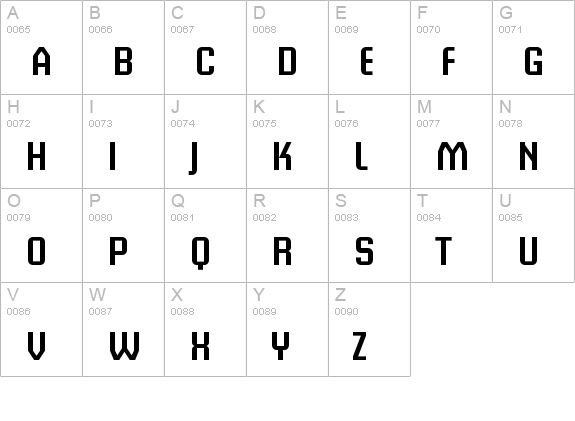
Briem Akademi Std Semibold Font Details
Briem Akademi Std Semibold is a sub-bold, structured variant in the Briem typeface family \xE2\x80\x94 well suited to sub-headlines and emphasised passages.
Briem Akademi Std Semibold font is a versatile and modern typeface that exudes sophistication and elegance. Its bold and sturdy design makes it perfect for headlines, titles, and branding projects. With its clean lines and balanced proportions, Briem Akademi Std Semibold font adds a touch of professionalism to any design. What's even better is that this stunning font is available for free download at FontsMarket.com. So whether you're a designer looking to elevate your projects or a business owner in need of a stylish font for your marketing materials, Briem Akademi Std Semibold font has got you covered. Download it today and add a touch of class to your designs!